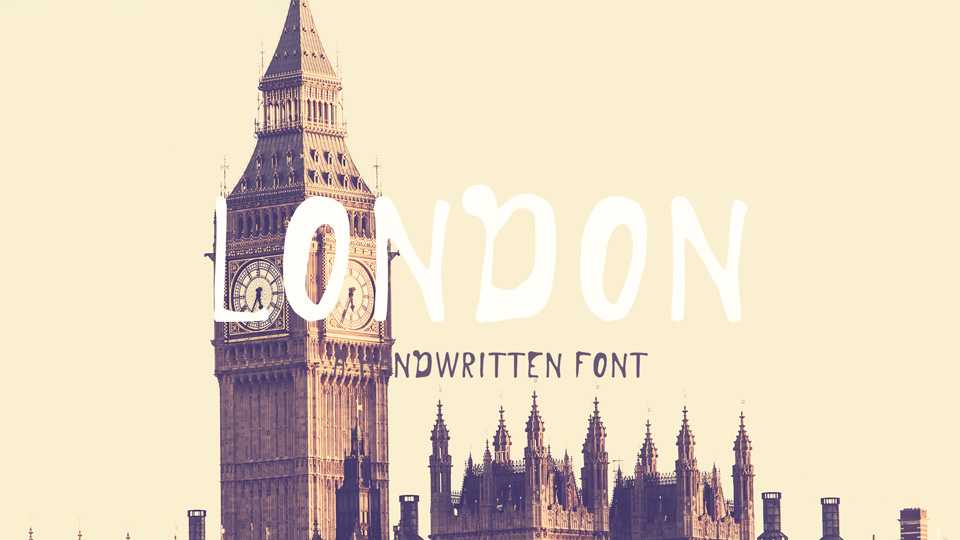
Download London font, a simple casual handwritten font with natural flow with ink imperfections. London font is suitable for notes, quotes, social media, craft works, cards and more.